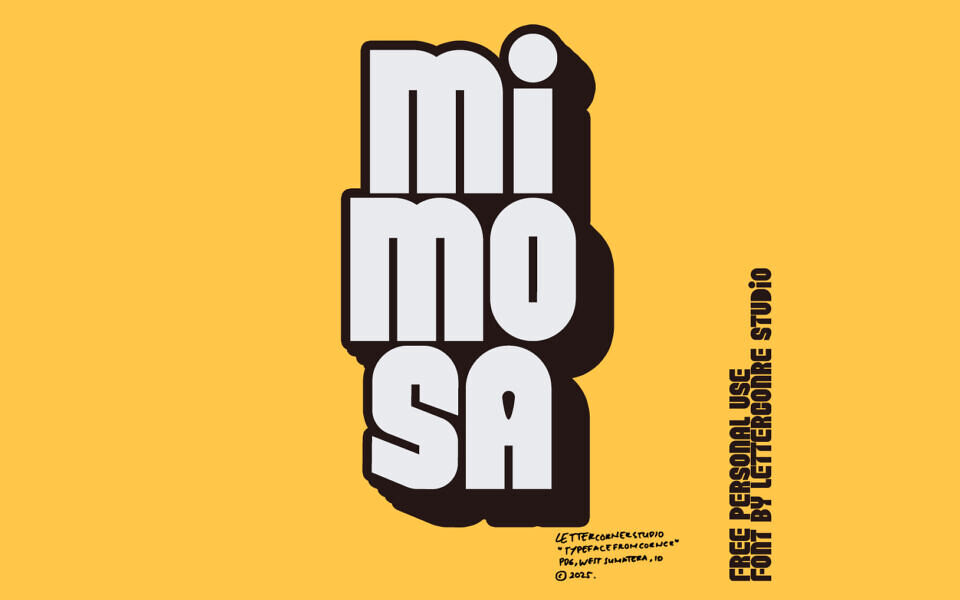
Mimosa is a bold and playful typeface that captures the essence of retro design with a modern twist. Its thick, rounded letters bring a fun and vibrant personality, perfect for posters, branding, packaging, and creative displays. This font adds a cheerful, eye-catching touch to any project.